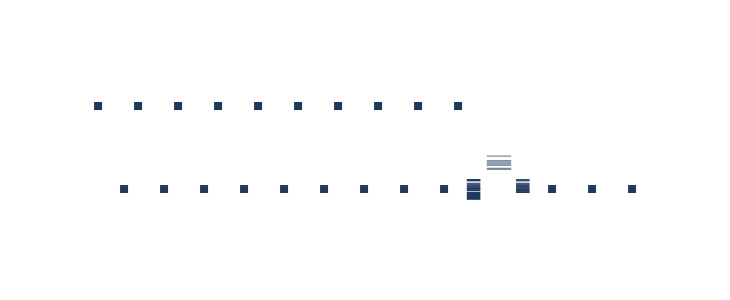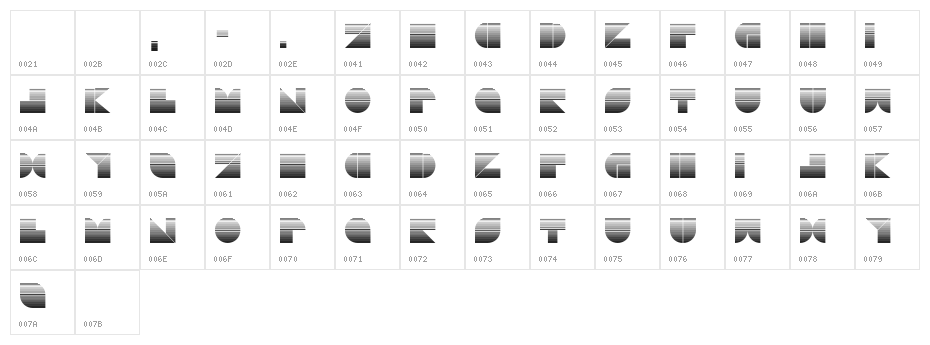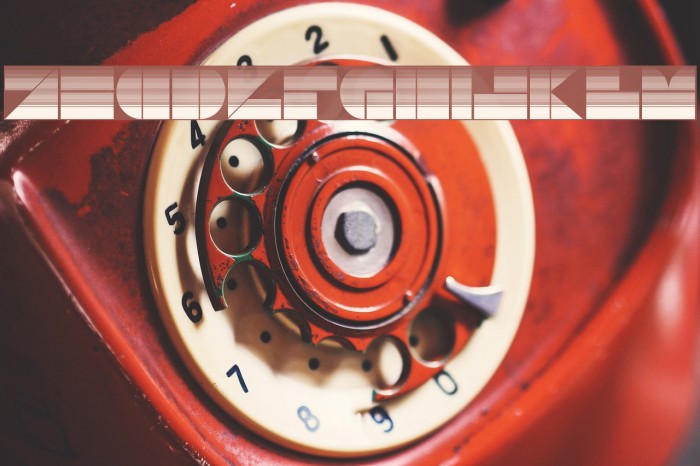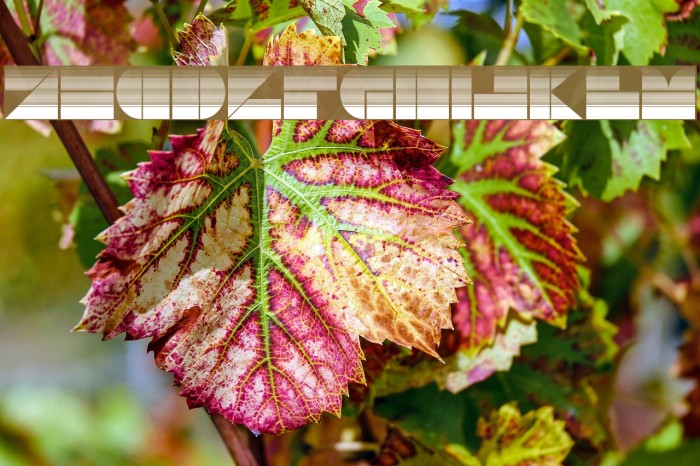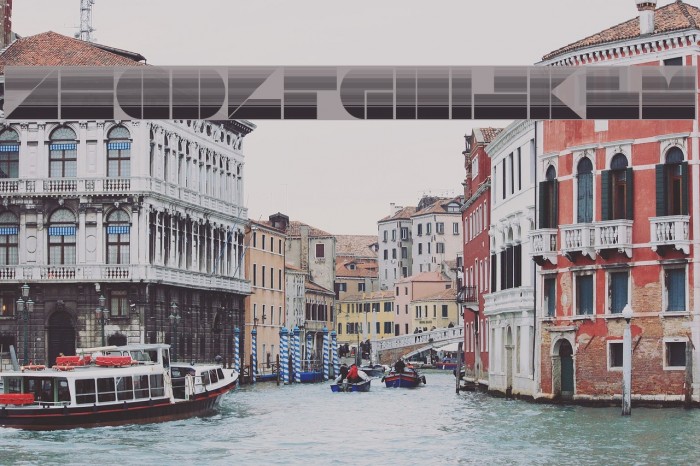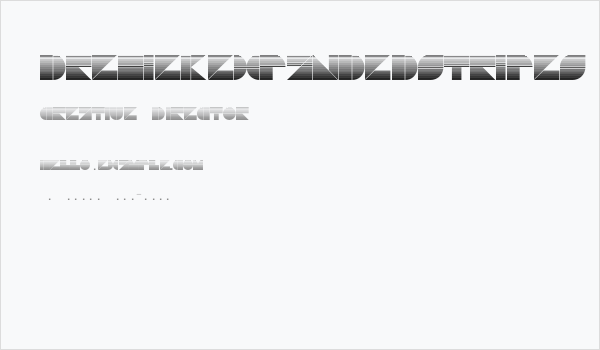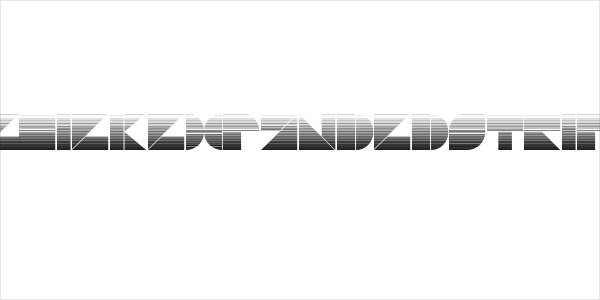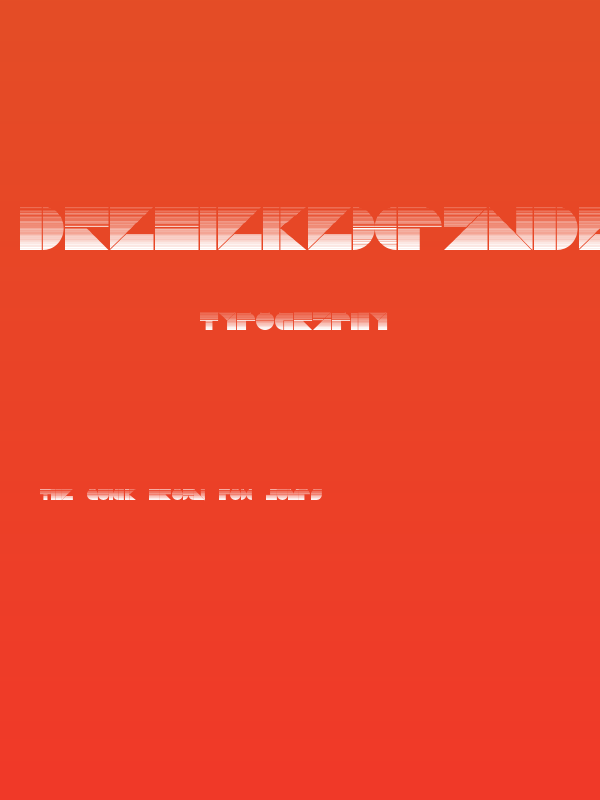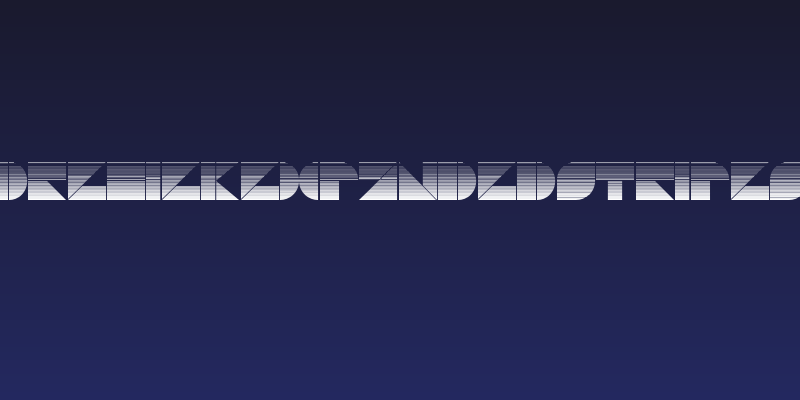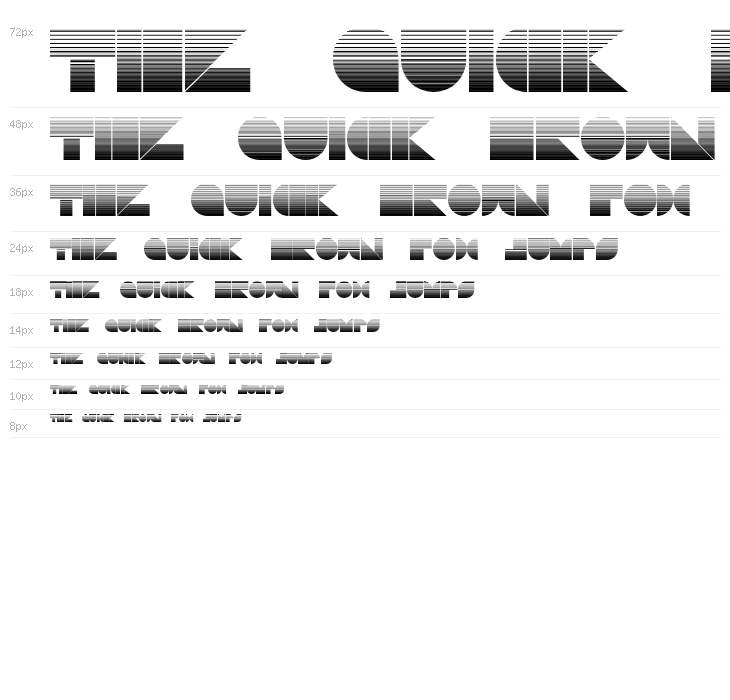
DrebiekExpandedStripes Font
DrebiekExpandedStripes Description
This font features a unique and striking design characterized by horizontal stripes that create a sense of movement and energy. The letters are bold and wide, with a geometric structure that emphasizes horizontal lines. The uppercase and lowercase letters maintain a consistent style, with the stripes adding a layered effect that enhances the visual interest. The numbers and special characters follow the same design principles, ensuring a cohesive look across all elements. This font is ideal for projects that require a modern and dynamic aesthetic.
| Proposed Projects | Ideal for branding, posters, and headlines where a modern and dynamic look is desired. |